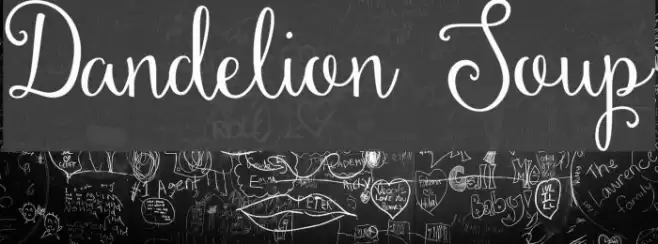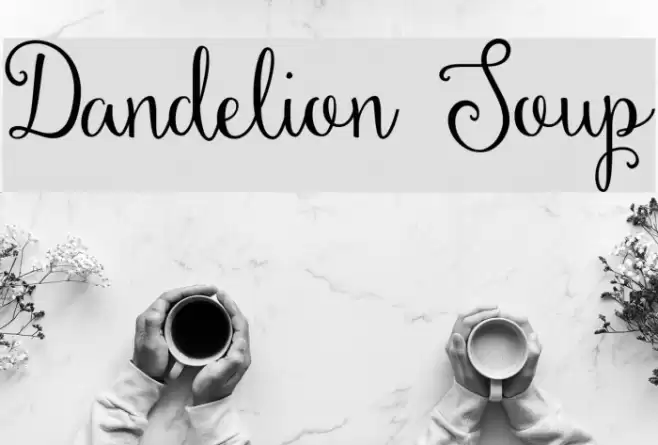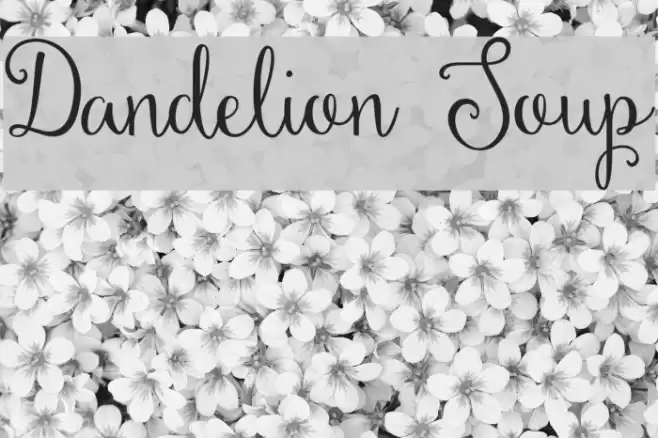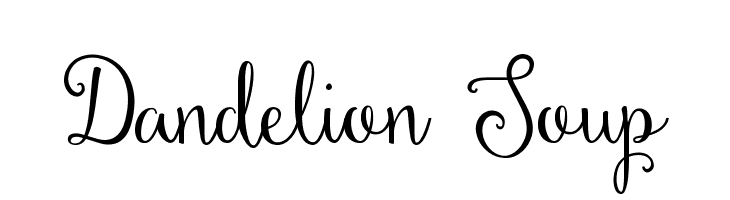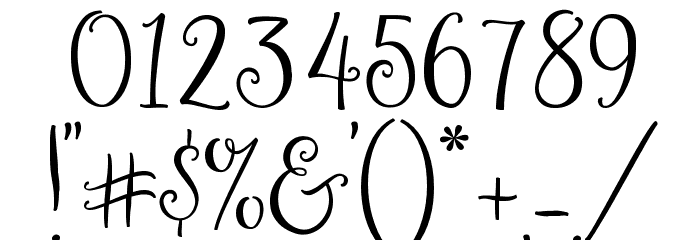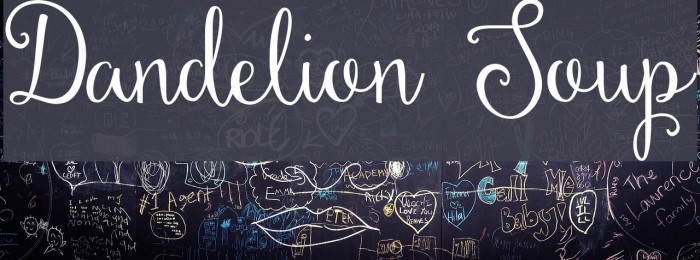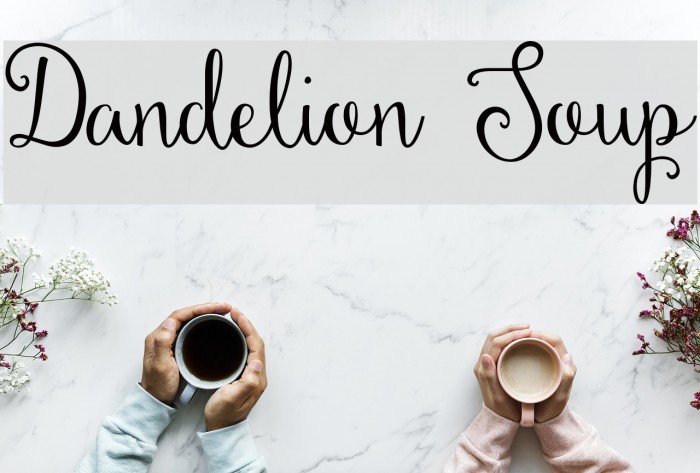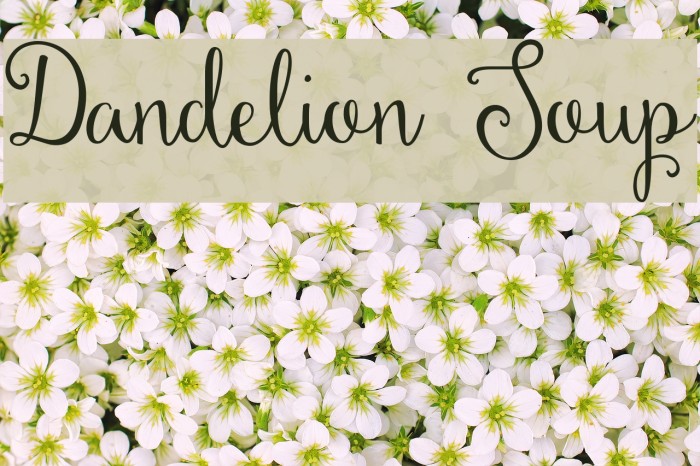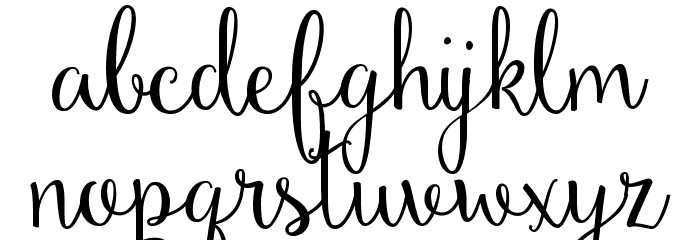
Dandelion Soup Font
Dandelion Soup Description
This font features a whimsical, handwritten style with elegant curls and loops that give it a playful yet sophisticated appearance. The uppercase letters are characterized by their tall, slender forms with decorative swirls, while the lowercase letters maintain a consistent flow with a slightly more casual feel. The numerals are distinct and easy to read, incorporating the same playful curves found in the alphabet. Special characters are creatively designed, adding to the font's overall charm. This font is perfect for projects that require a touch of elegance and creativity, such as invitations, greeting cards, and branding materials.
A whimsical, handwritten font with elegant curls and loops, perfect for creative projects from Uncategorized fonts.
- Proposed Projects: Ideal for invitations, greeting cards, branding, and any project needing a playful yet elegant touch.
- Use Case: Headlines, Logos, Invitations